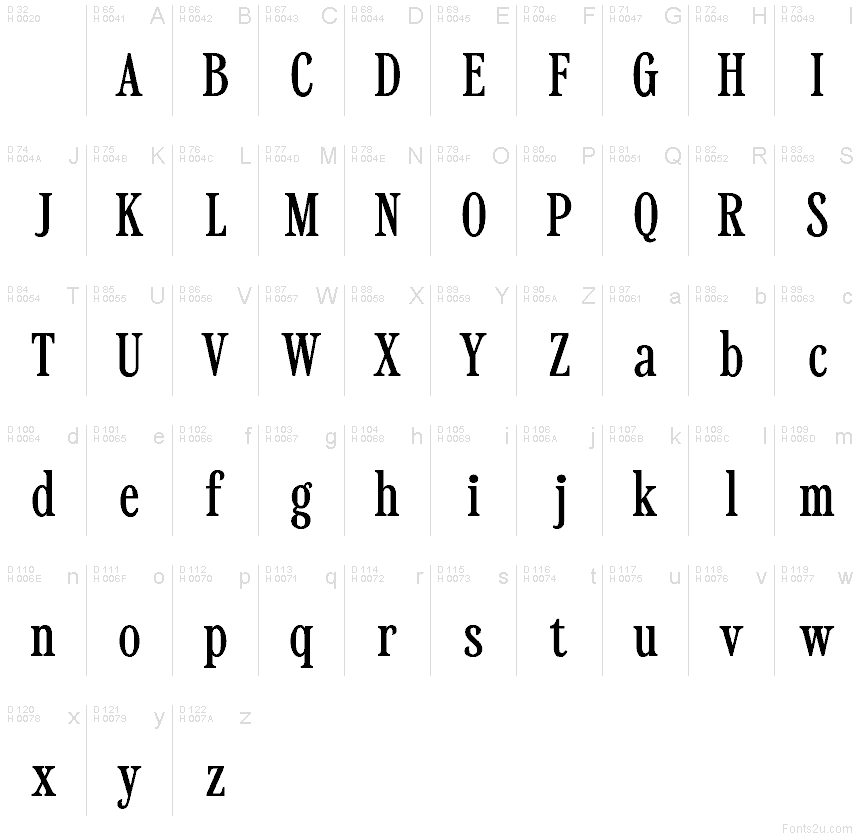
CS Miguela Regular Demo
CS Miguela font by Craft Supply Co. brings elegance and authority together in a condensed serif style. With its expressive terminals and traditional appearance, CS Miguela has an undeniable classic twist that captures the attention of readers at first sight.
This free serif font is suitable for books, magazines, newspapers, blogs, branding projects, package design, posters/titles/headings/sub-headings alike. Other adopted uses can be business cards, t-shirts designs, online banners, postcards/greeting cards.